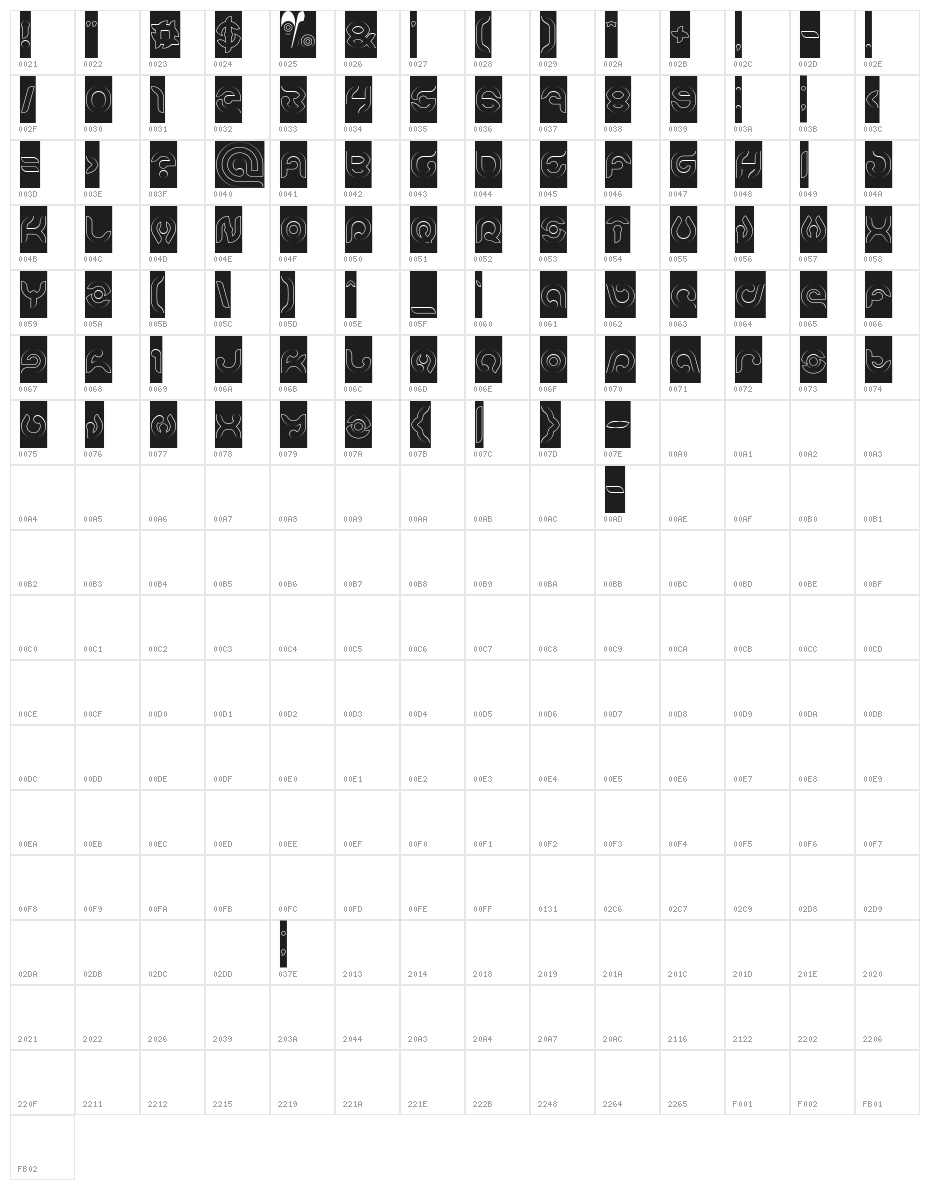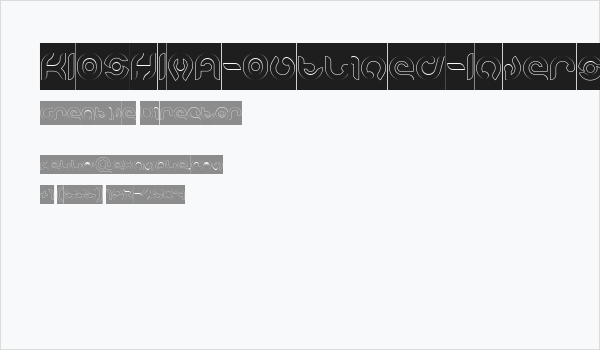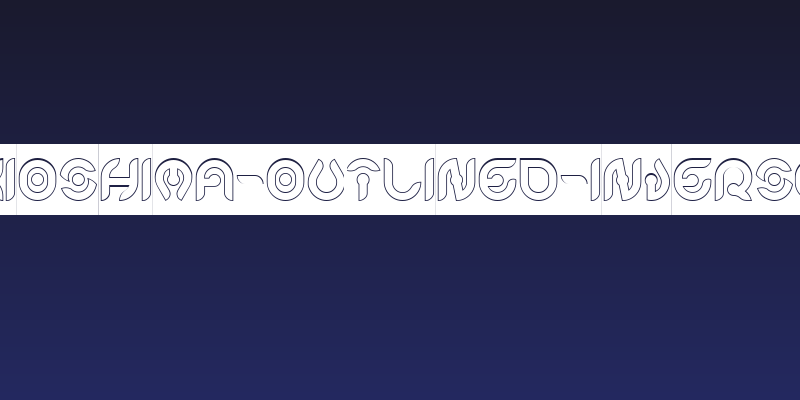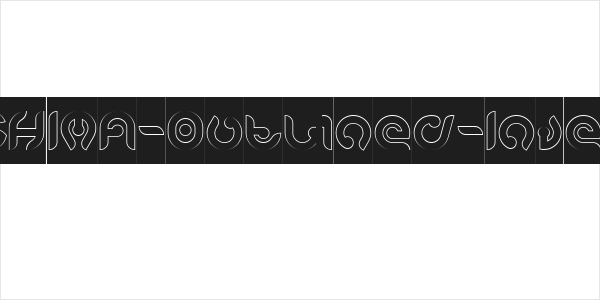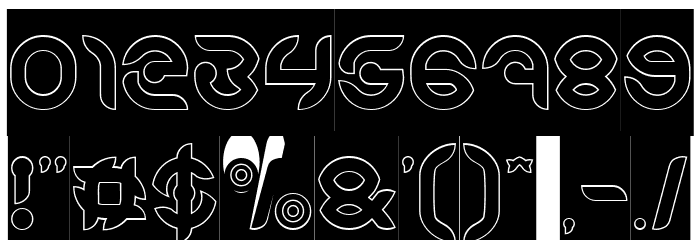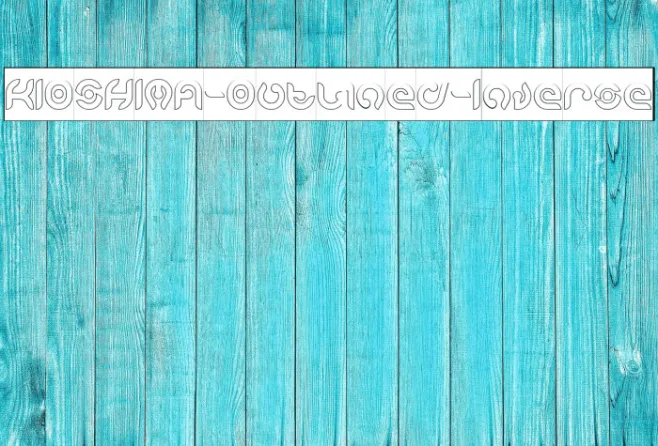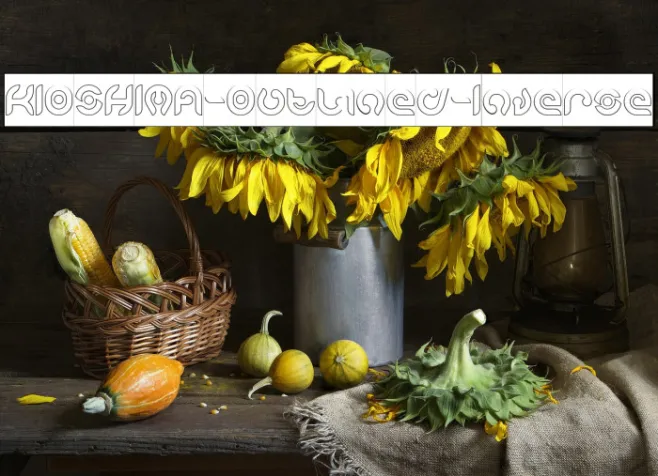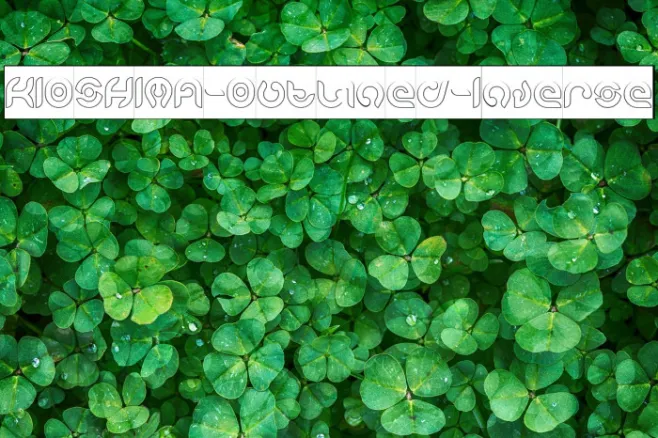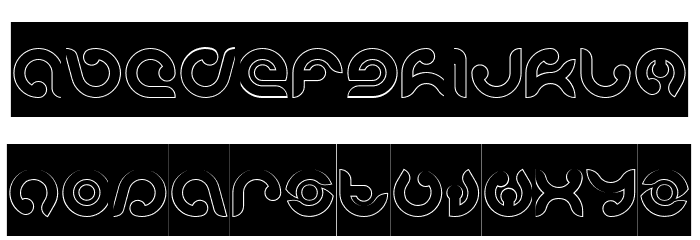
KIOSHIMA-Outlined-Inverse Font
KIOSHIMA-Outlined-Inverse Description
This font features a unique outlined style with a futuristic and geometric design. Each character is crafted with a continuous line that forms the letter shapes, creating an inverse effect against the black background. The uppercase and lowercase letters maintain a consistent style, with rounded edges and a sense of symmetry. Numbers and special characters follow the same design principles, ensuring uniformity across the font. The overall appearance is bold and eye-catching, making it suitable for modern and creative projects.
| Proposed Projects | Ideal for branding, posters, digital artwork, and modern advertisements. |